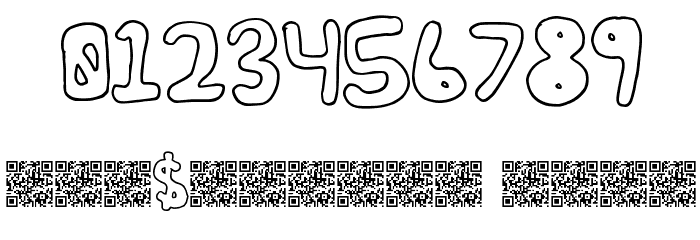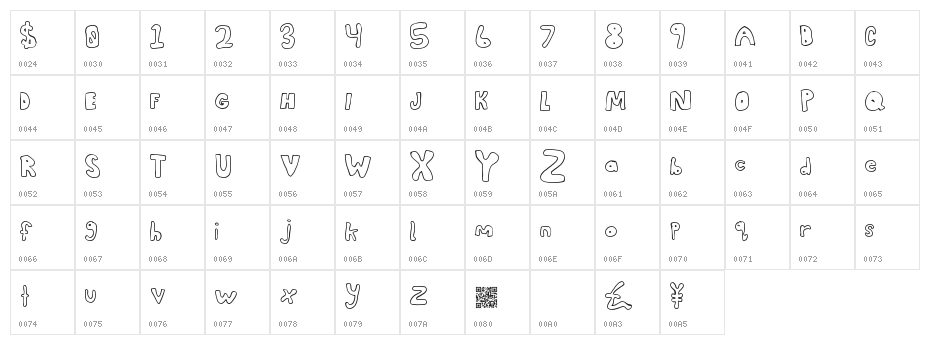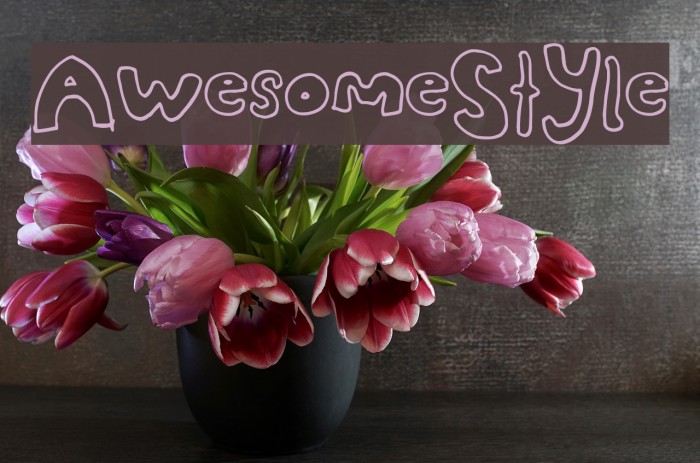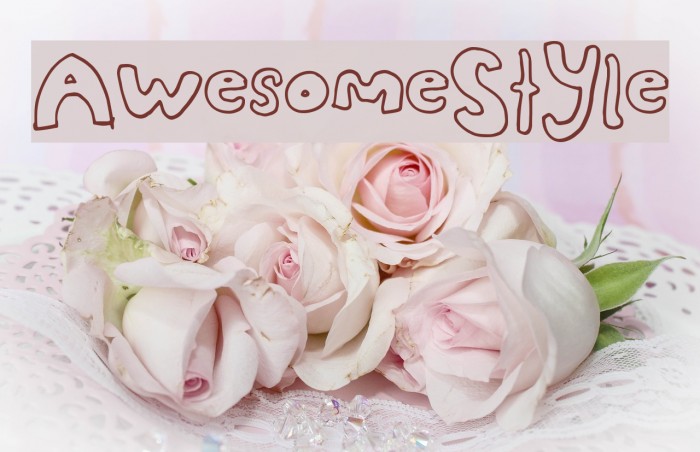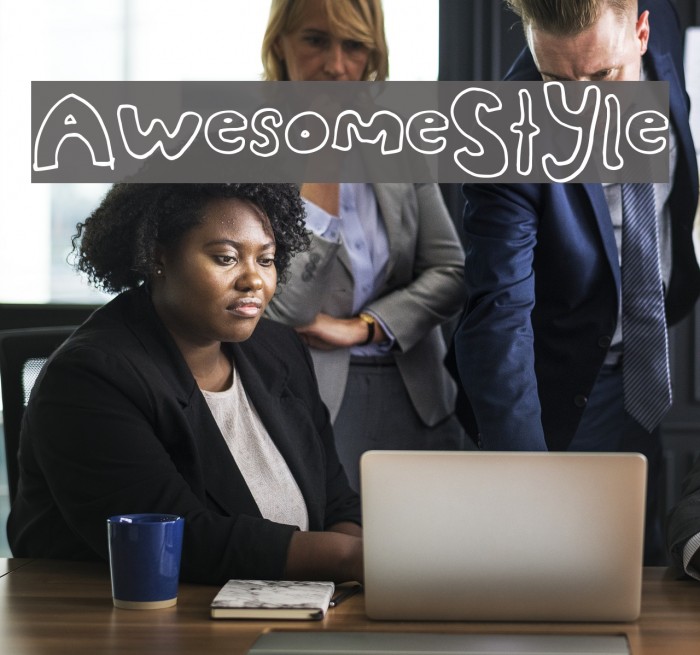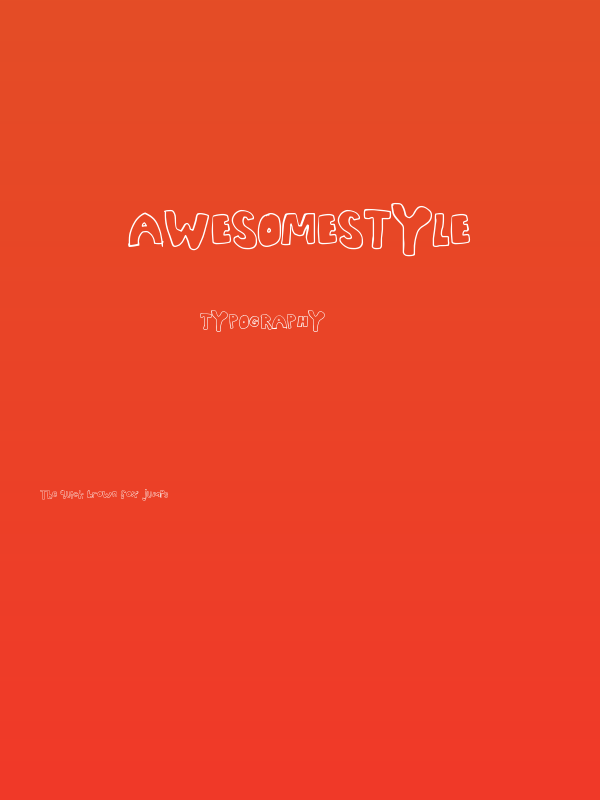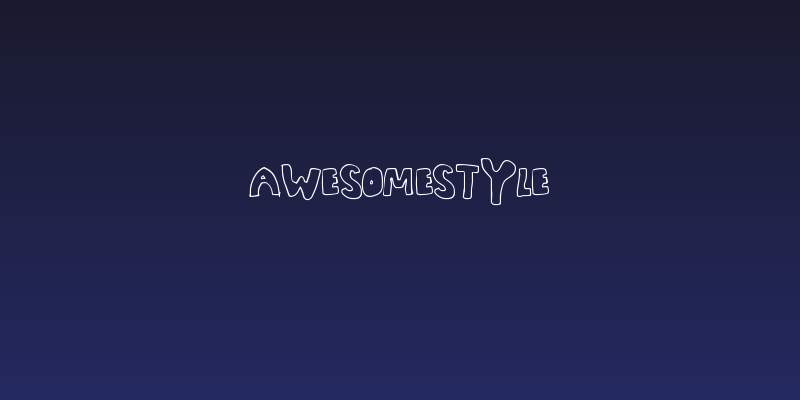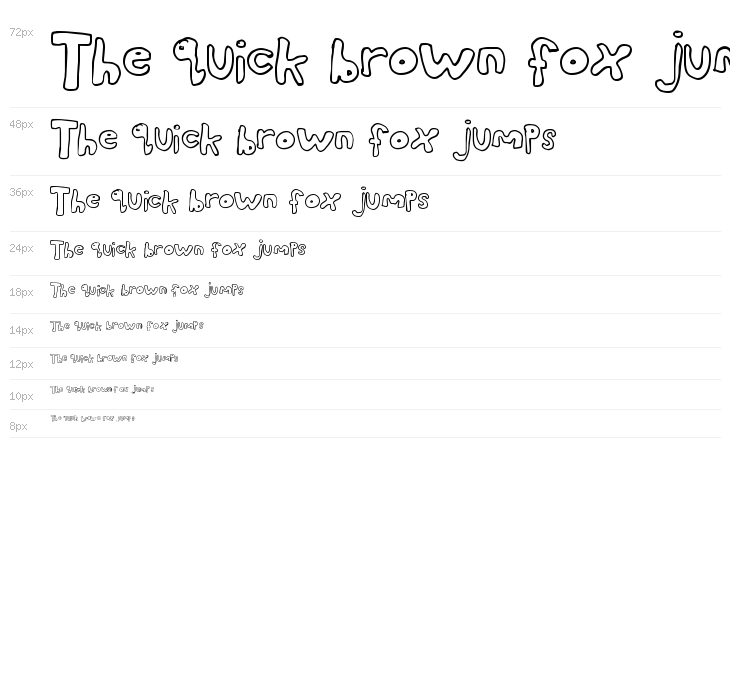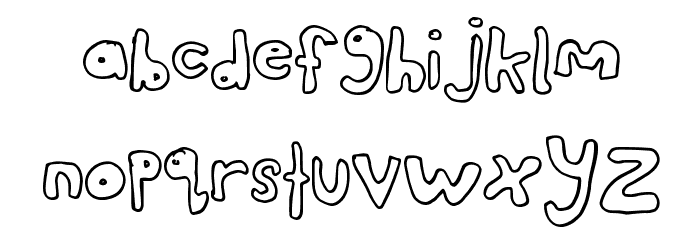
AwesomeStyle Font
AwesomeStyle Description
This playful and whimsical font features a hand-drawn, cartoon-like style with bold, rounded edges. Each character is outlined, giving it a bubble-like appearance that adds a sense of fun and creativity. The uppercase and lowercase letters maintain a consistent style, with slight variations that enhance the font's informal and lively nature. Numbers and special characters are designed to match the overall aesthetic, ensuring a cohesive look across all text elements. The font's unique style makes it ideal for projects that require a touch of humor and personality.
| Overall Style | Whimsical |
| Proposed Projects | Great for children's books, comic strips, playful branding, and creative posters. |